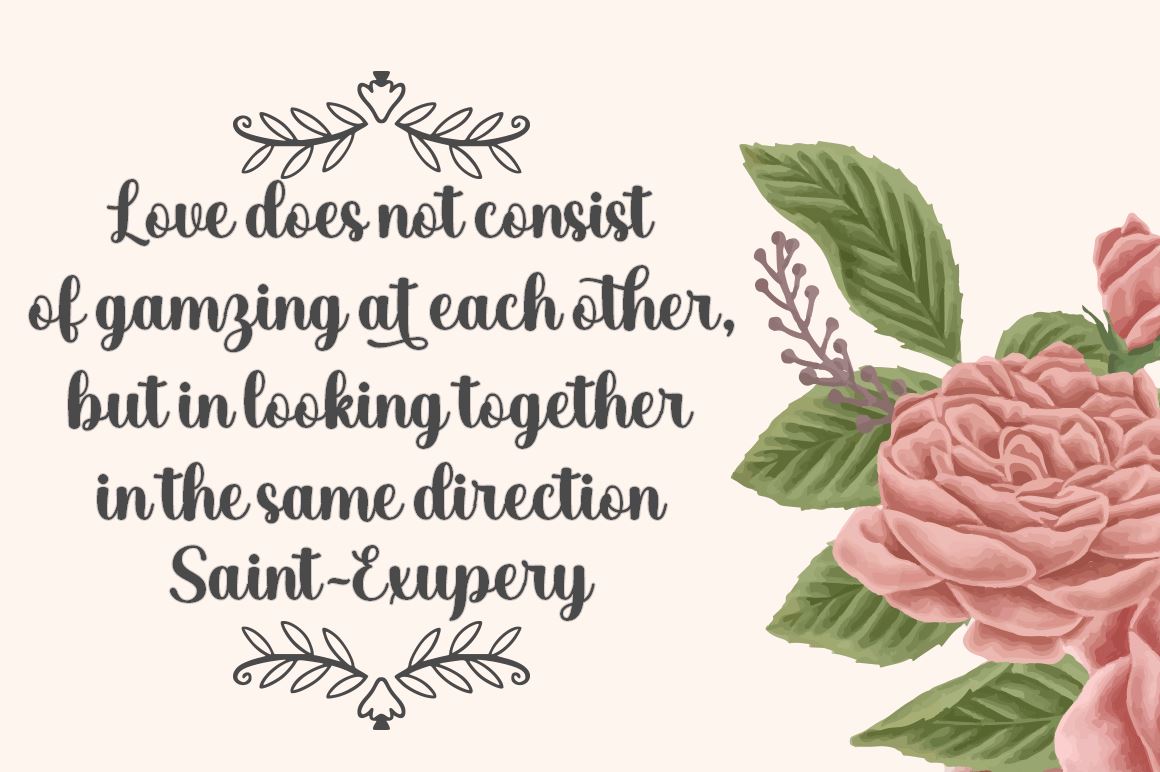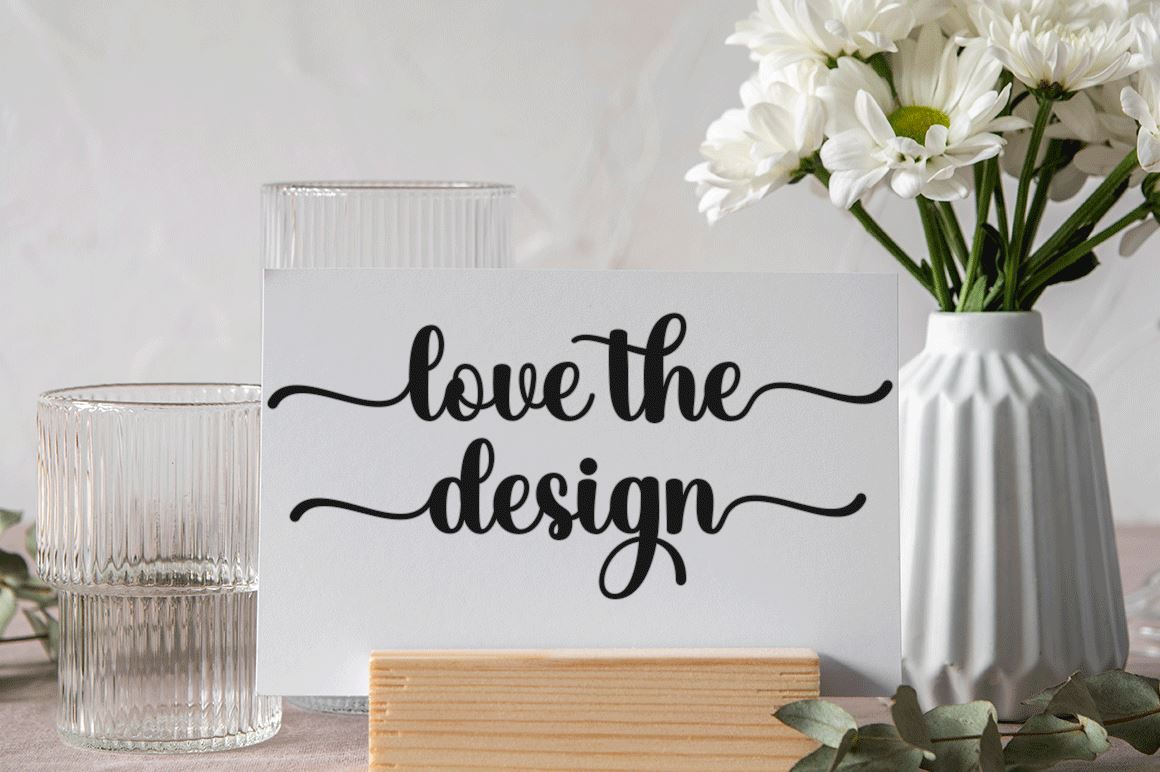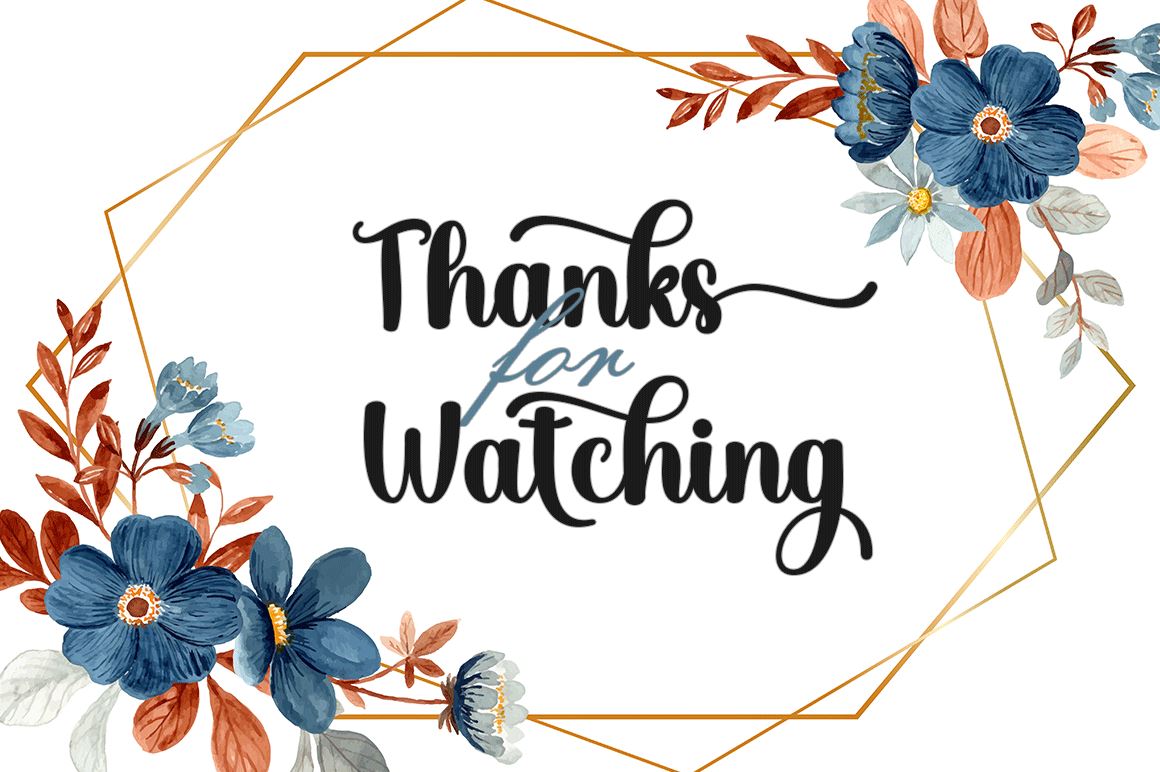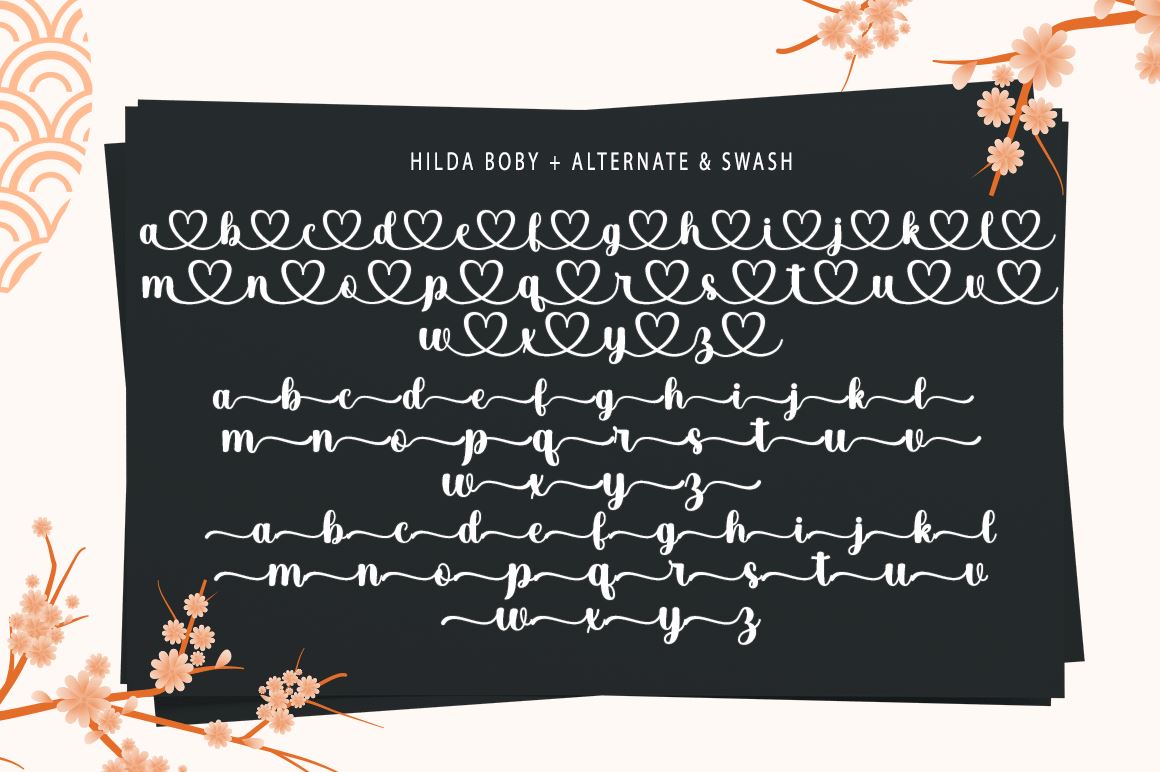
About Hilda Boby Script
Introduce Hilda Boby Script with modern calligraphy type font, I hope you are interested in this font, if you want to use it for your work This font can be used easily and simply because there are many features in it contains a complete set of lowercase and uppercase letters, assorted punctuation, numbers, and multilingual support. the font also contains some ligatures and Style Set of alternative styles for those of you who have software which is able to work OpenType (Photoshop/Illustrator/InDesign). Files include: • Hilda Bobby Script.otf • Hilda Bobby Script.ttf Hilda Boby Script is suitable for today’s growing market design, this font has a model Trendy, natural and soft, with this font you can take advantage of an occasion in every moment a great way to highlight the celebration your best party, because this font will be a support for the cause such as wedding invitations, parties, graduations, birthdays, gatherings, etc. Thank You,